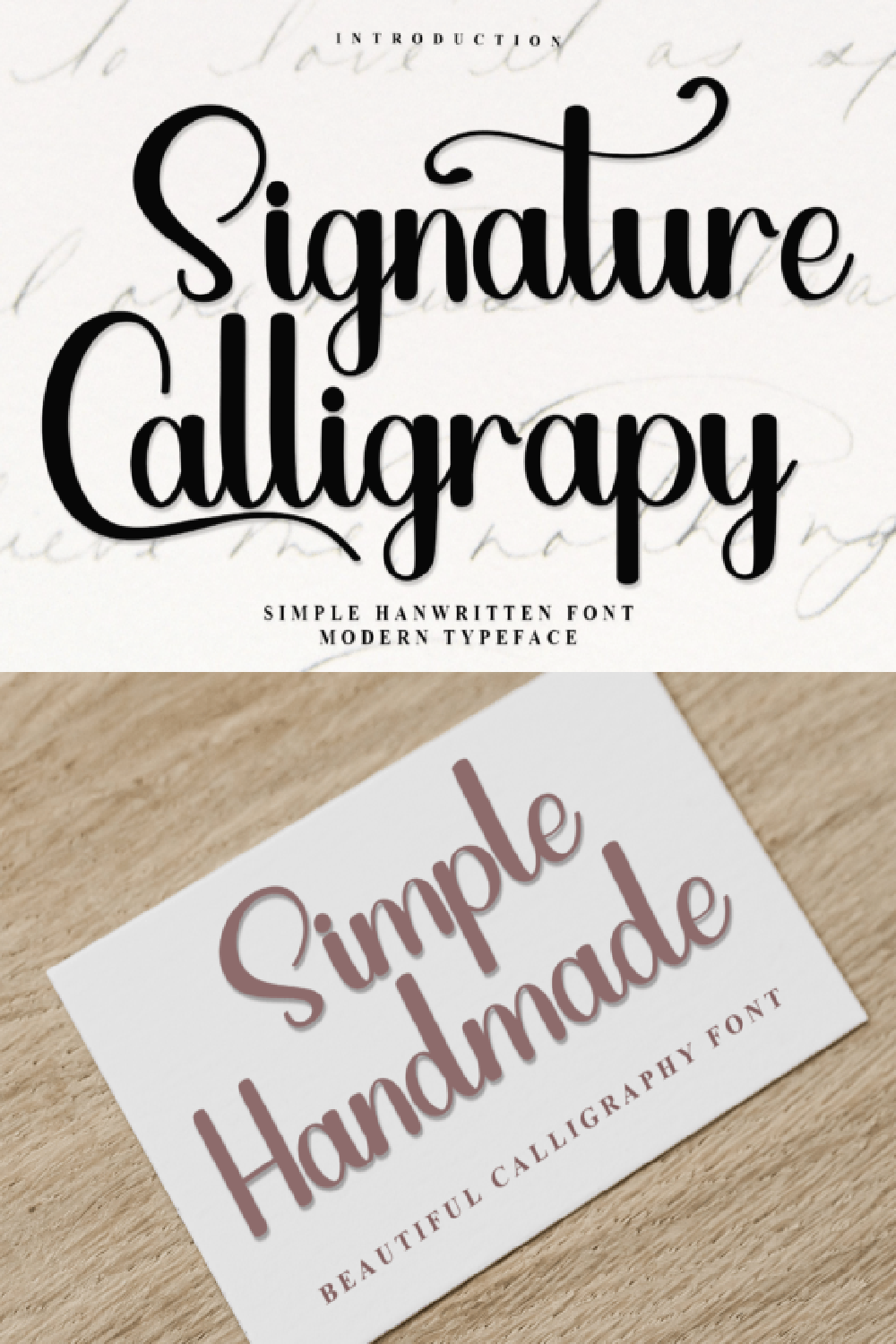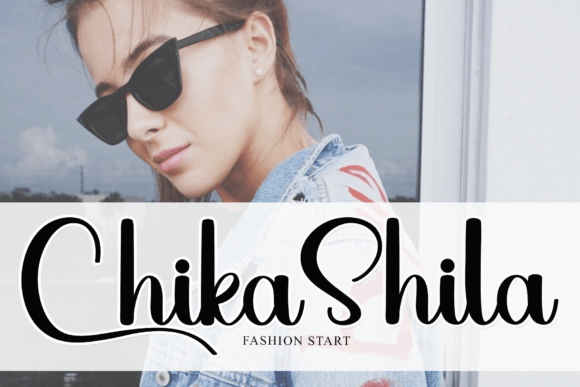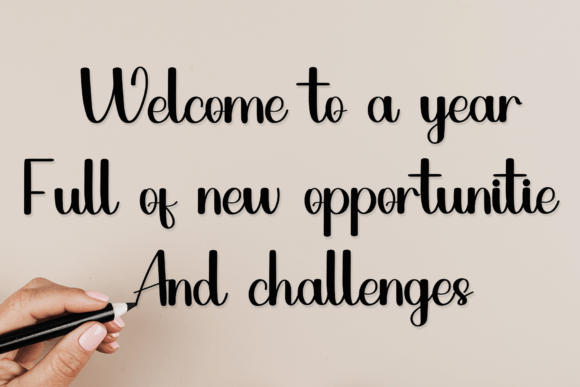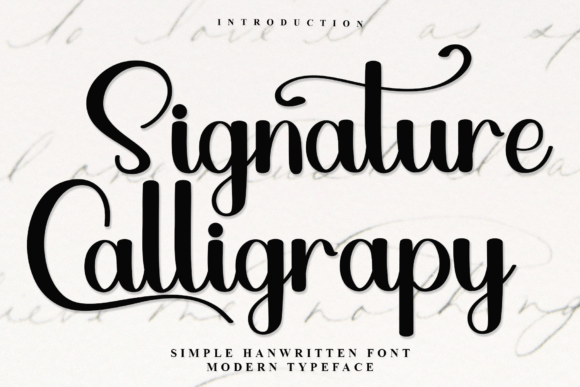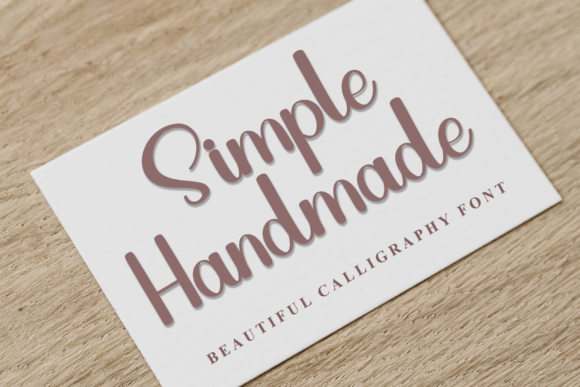
Signature Calligraphy Font
About the Signature Calligraphy Font
Add a touch of class to your work with the Signature Calligraphy Font, a truly exceptional typeface. Signature Calligraphy is a festive and happy typeface that captures the spirit of the holiday season. With its decorative elements and unique flair, it adds a touch of charm to your designs. Perfect for greeting cards, gift labels, and holiday-themed projects, this font brings a cheerful and nostalgic atmosphere to your words.